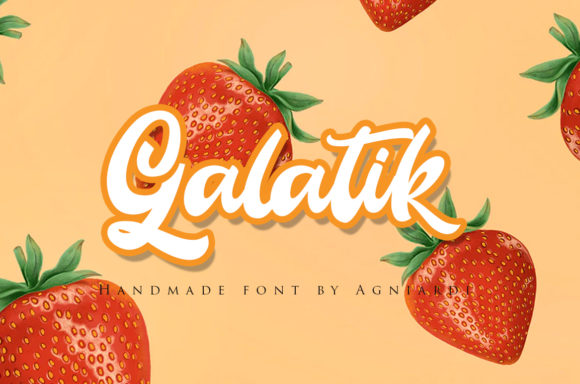
Introducing Galatik Font: A Journey into Typographic Enchantment
Embark on a captivating adventure with Galatik Font, a mesmerizing display typeface that will ignite your imagination and elevate your designs to new heights. Crafted with love by the esteemed Fontruly, Galatik is a true masterpiece that seamlessly blends whimsy and elegance, embodying the essence of romance and creativity.
Galatik's playful yet sophisticated curves evoke a sense of nostalgia, reminiscent of the handwritten letters that once graced love letters and cherished keepsakes. Each letter dances across the page with a delightful irregularity, creating a captivating rhythm that will draw your audience's gaze.
Unleash your inner artist with Galatik and let your ideas flourish. This versatile font is a perfect companion for a wide range of creative endeavors, from enchanting invitations to heartfelt greeting cards, from whimsical posters to charming packaging. With its boundless versatility, Galatik empowers you to transform ordinary designs into extraordinary works of art.
Step into a world where imagination knows no bounds. Galatik Font is a treasure trove of possibilities, inviting you to craft designs that are both unique and unforgettable. Let the sweet embrace of its curves inspire your creativity, and watch as your words blossom into captivating masterpieces.